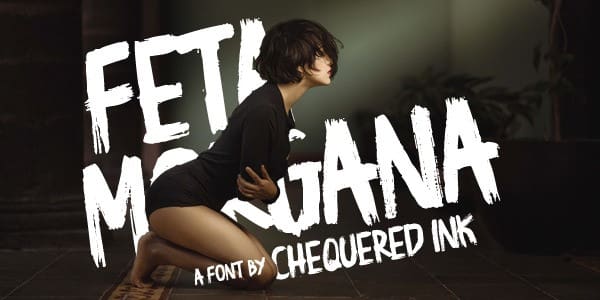
Feta Morgana Font
Feta Morgana Font, is a friendly, brush stroke font that looks at home in a wide range of designs! This font is a dry brush stroke script, and can give your designs an elegant yet completely modern look.